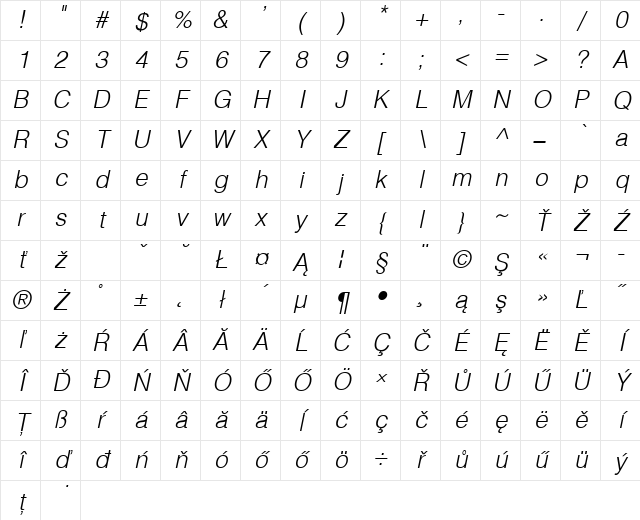
Hu_Switzerland Lt  Italic Regular
Design Context for Hu_Switzerland Lt Italic
Hu_Switzerland Lt Italic is a composed and adaptable typeface that performs quietly and consistently across a wide range of design contexts. The slanted form adds forward momentum and visual energy. Its slender proportions lend an understated elegance to any composition.
Pro Tip: Use Hu_Switzerland Lt Italic for emphasis, pull quotes, and subheadings where its slanted energy can add rhythm to the layout.